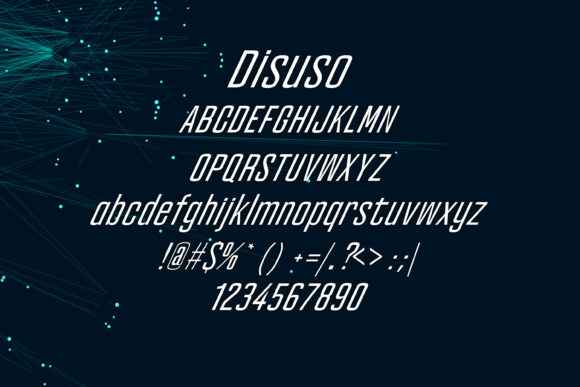
Unleashing the Power of Disuso Font: A Game-Changer for Modern Design
Have you ever been scrolling through social media, and suddenly a design catches your eye, making you stop and take a second look? For designers, that ‘aha’ moment is what drives creativity and inspires new projects. For me, it was stumbling upon the sleek and modern Disuso Font, and I knew I had to dive deeper into its story.
Disuso Font is a sans serif font that draws inspiration from traditional sign painting, giving it a unique blend of vintage charm and modern edge. This clean and minimal typeface is perfect for creating eye-catching logos, headlines, business cards, and more. Whether you’re a seasoned designer or just starting out, Disuso Font offers endless possibilities for creative expression.
As a valuable addition to any designer’s toolkit, Disuso Font provides a versatile and stylish solution for modern designs that demand attention. With its clean lines and modern twist, it’s no wonder why Disuso Font has become a go-to choice for designers looking to elevate their projects to the next level.
Disuso Font Key Features
- Font Family: Disuso is a sans-serif font family designed by Kyle Wayne Benson and published by the Diseno Co. It is available in several weights, from thin to bold.
- Font Size: Disuso is designed to be highly legible at a wide range of font sizes, from 8pt to 24pt or larger. It is particularly well-suited for body text and headings.
- Resolution: Disuso is designed to be clear and readable at resolutions as low as 72 dpi, making it suitable for digital displays and online use.
- Unique Characteristics: Disuso features a unique blend of geometric and organic elements, giving it a distinctive and modern aesthetic. Its letterforms are highly optimized for legibility and readability.
Disuso Font Review
Overall, I think Disuso Font is an interesting addition to the world of sans-serif fonts. Let’s break it down.
- Disuso’s geometric shape and clean lines make it perfect for digital displays and mobile devices.
- The font’s x-height is well-balanced, which makes it easy to read at various font sizes.
- The font’s weight system is consistent and well-designed, allowing for a wide range of design applications.
- Disuso Font supports a wide range of languages, making it a great choice for multilingual designs.
- The font’s personality might not be strong enough to stand out in a crowded market.
- Disuso Font may not be the best choice for print designs, as it can appear a bit digital and sterile.
- The font’s limited italic and bold variations may limit its design possibilities.
Disuso Font is a solid choice for digital designs, but it may not be the best fit for print or projects that require a stronger personality. With some refinement and additional variations, Disuso Font could become a top contender in the sans-serif font market.
Inter Font is similar to Disuso Font in terms of its modern design, but it has a more geometric feel and a slightly more condensed letterform. It is also highly legible in small sizes, making it a great choice for digital products.